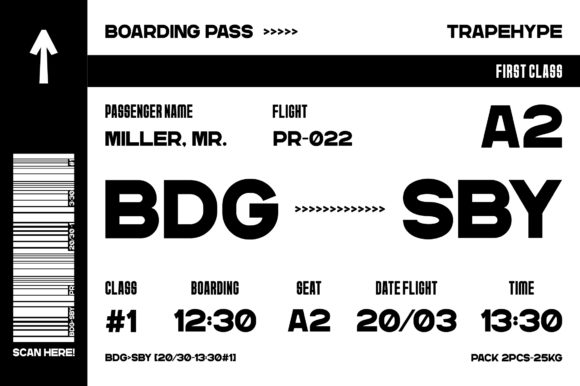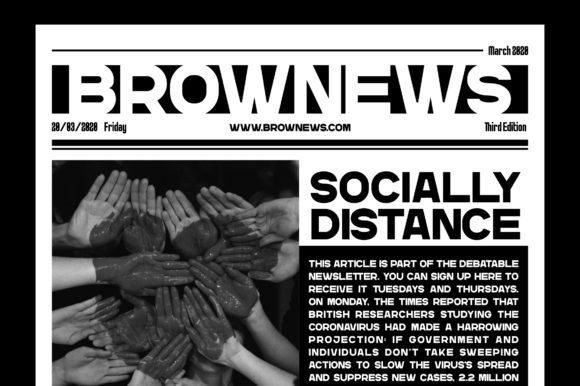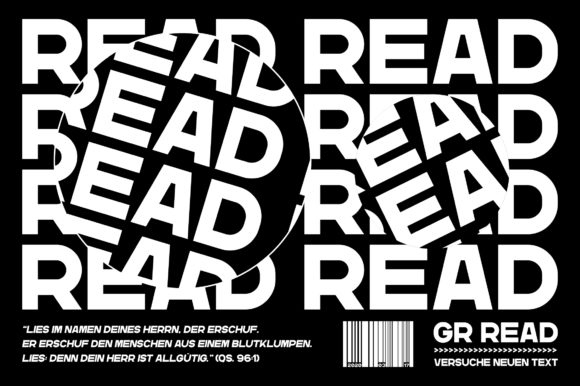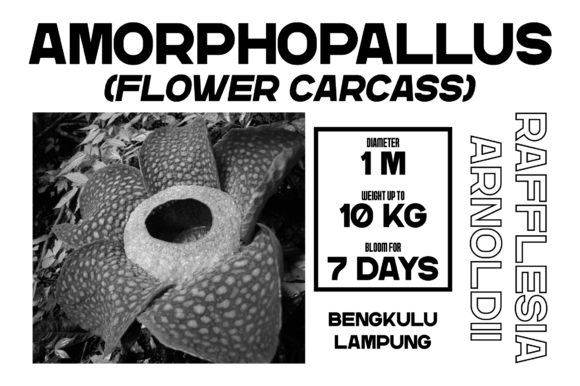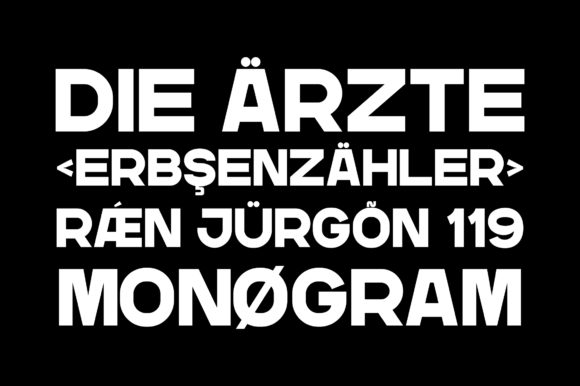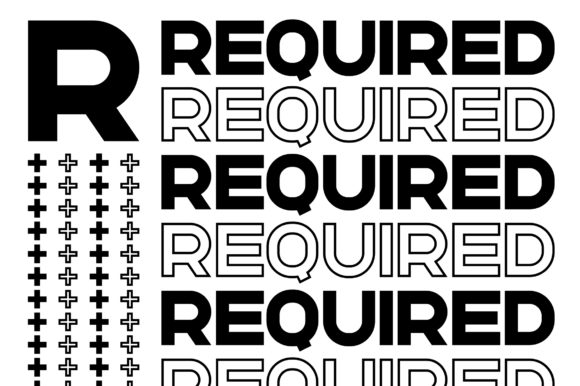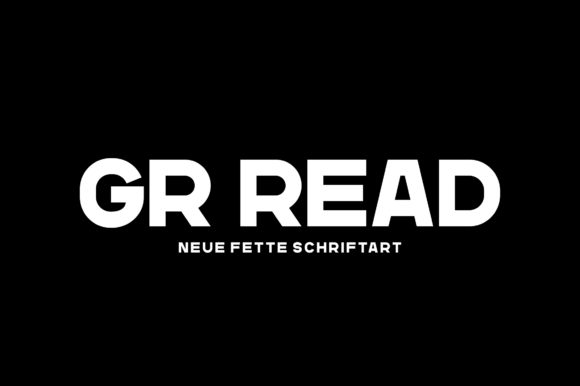
Introducing GR Read Font: The Ultimate Bold Sans Serif for Designers and Crafters
In the world of typography, a font can make or break a design. For designers and crafters, finding the perfect font that combines style, elegance, and versatility can be a daunting task. However, if you’re looking for a bold sans serif font that can elevate your designs, look no further than GR Read Font. In this article, we’ll dive into the features, benefits, and uses of GR Read Font, and explore why it’s becoming a favorite among designers and crafters.
What is GR Read Font?
GR Read Font is a bold sans serif font that has been carefully handcrafted to become a true favorite among designers and crafters. Its clean and modern lines make it perfect for a wide range of design projects, from branding and advertising to packaging and digital media. With its bold and eye-catching appearance, GR Read Font is sure to make a statement in any design.
One of the standout features of GR Read Font is its PUA (Private Use Area) encoding. This means that you can access all of the stunning glyphs and swashes with ease, giving you a wealth of creative options at your fingertips. With PUA encoding, you can easily insert glyphs and swashes into your designs, allowing you to add an extra layer of depth and visual interest.
Special Features: Alternate Glyphs and Ligatures
GR Read Font also features a range of special features that set it apart from other fonts. These include alternate glyphs and ligatures, which allow you to add an extra layer of creativity and sophistication to your designs. Alternate glyphs provide you with multiple options for letters and characters, allowing you to experiment with different styles and variations. Ligatures, on the other hand, enable you to combine letters and characters in unique and creative ways, adding a touch of elegance and refinement to your designs.
So why should designers and crafters choose GR Read Font for their projects? Here are just a few benefits of using this versatile and stylish font:
- Versatility: GR Read Font is perfect for a wide range of design projects, from branding and advertising to packaging and digital media.
- Ease of use: With PUA encoding, accessing glyphs and swashes is easy, making it simple to add creative flourishes to your designs.
- Customization: With alternate glyphs and ligatures, you can experiment with different styles and variations, giving you maximum creative control.
- High-quality design: GR Read Font has been carefully handcrafted to ensure a high level of quality and attention to detail.
Uses for GR Read Font
GR Read Font is perfect for a wide range of design projects, including:
- Branding and advertising: Use GR Read Font to create eye-catching logos, headlines, and advertising materials that demand attention.
- Packaging design: Add a touch of elegance and sophistication to your packaging designs with GR Read Font.
- Digital media: Use GR Read Font to create stunning digital media, including social media graphics, blog posts, and website headers.
- Crafting and DIY projects: GR Read Font is perfect for crafters and DIY enthusiasts who want to add a professional touch to their projects.
In conclusion, GR Read Font is a bold sans serif font that offers a unique combination of style, versatility, and ease of use. With its PUA encoding, alternate glyphs, and ligatures, this font provides designers and crafters with a wealth of creative options. Whether you’re working on a branding project, packaging design, or digital media, GR Read Font is sure to become a true favorite. So why not give it a try and see the difference it can make in your designs?